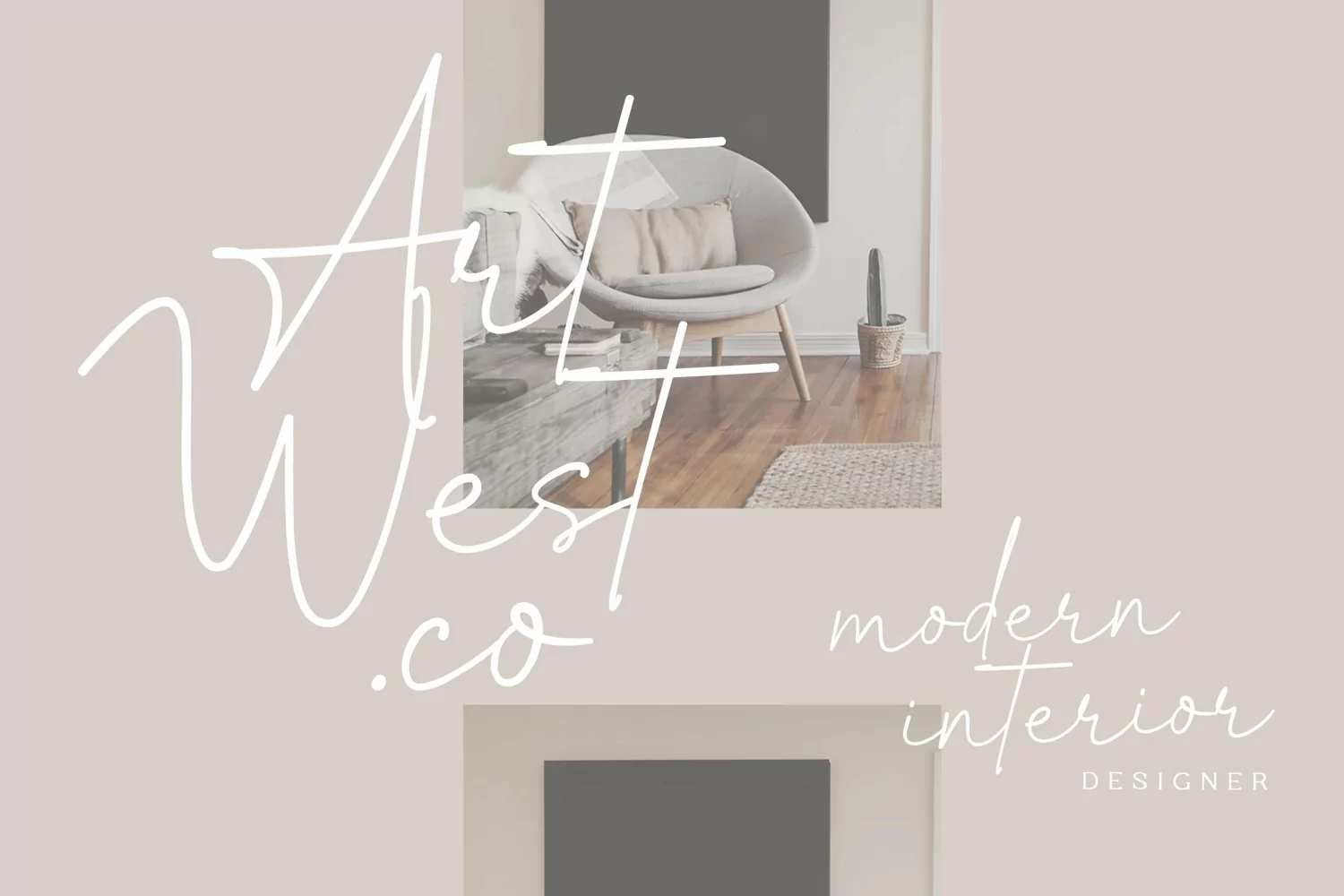
The Bafels is Modern Signature handwritten script font,
Great for wedding greeting cards, logos, branding materials, business cards, quotes, posters, Cricut artwork and more!